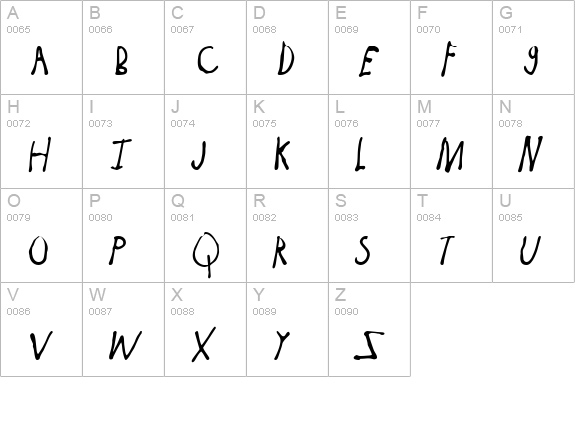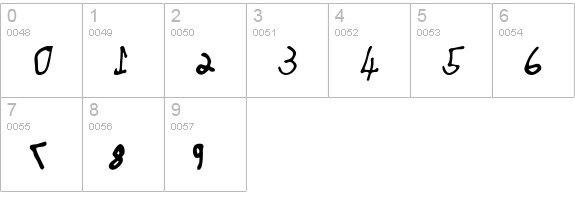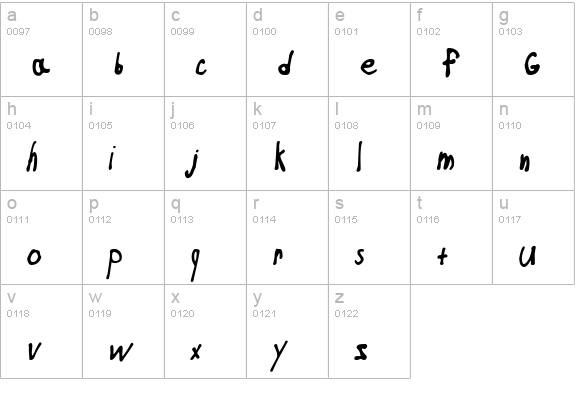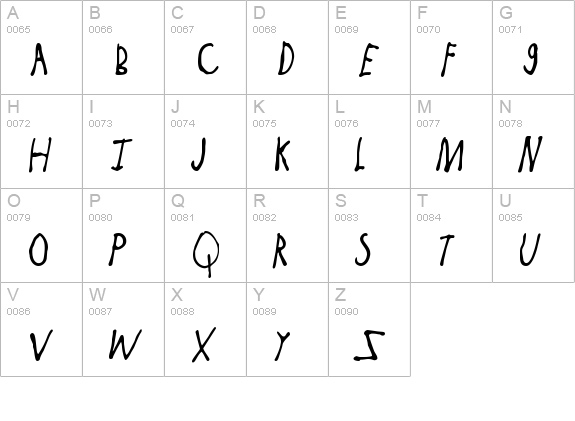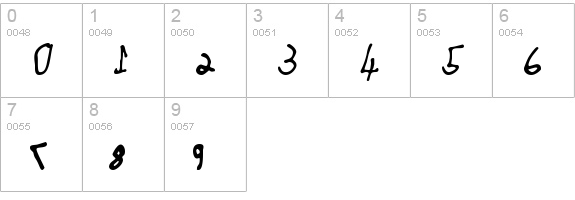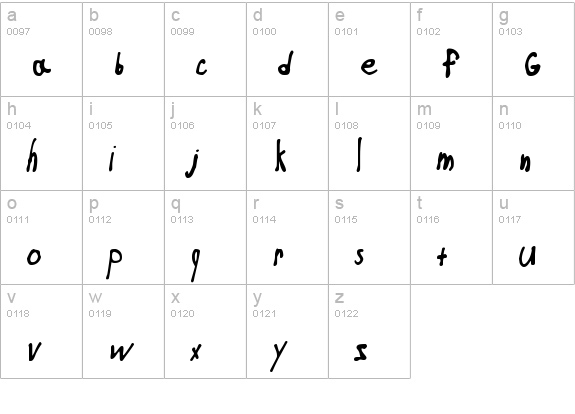
Jessica Oblique is a distinctive, italic variant in the Jessica typeface family \xE2\x80\x94 well suited to design and typography projects.
Introducing Jessica Oblique font, a modern and stylish typeface perfect for adding a touch of elegance to your designs. This unique font features slanted, italicized letters with a sleek and sophisticated look. Whether you're working on a branding project, website design, or any other creative endeavor, Jessica Oblique font will elevate your work to the next level. The best part? Jessica Oblique font is available for free download at FontsMarket.com. You can easily access this stunning font and incorporate it into your projects without any cost. Don't miss out on the opportunity to enhance your designs with the timeless beauty of Jessica Oblique font. Download it today and let your creativity shine!